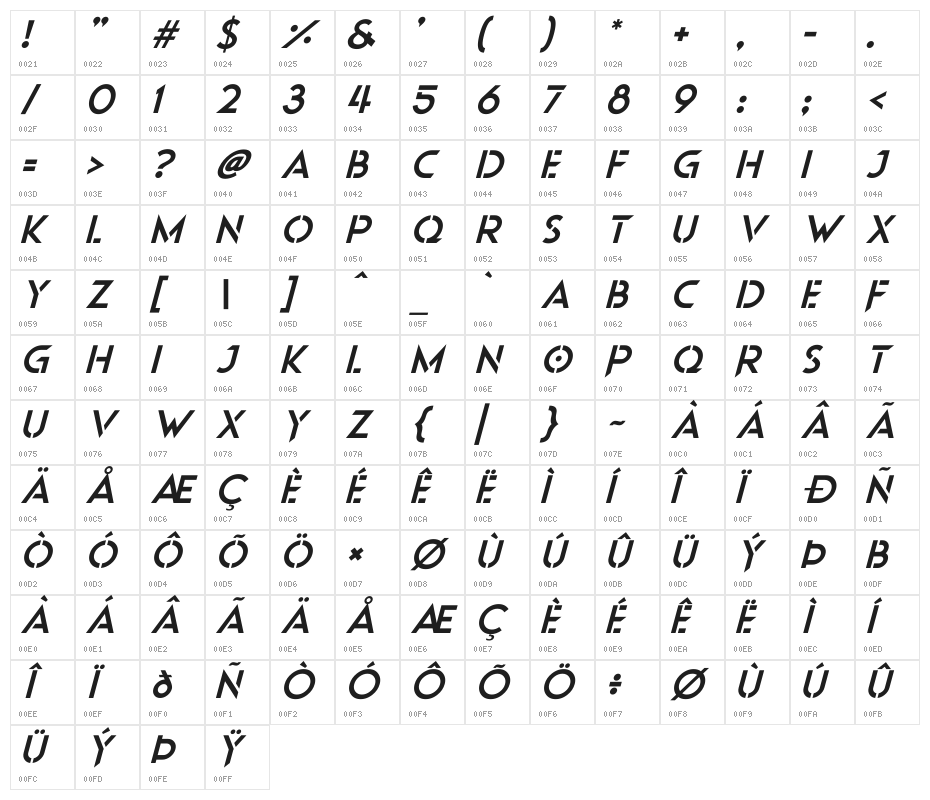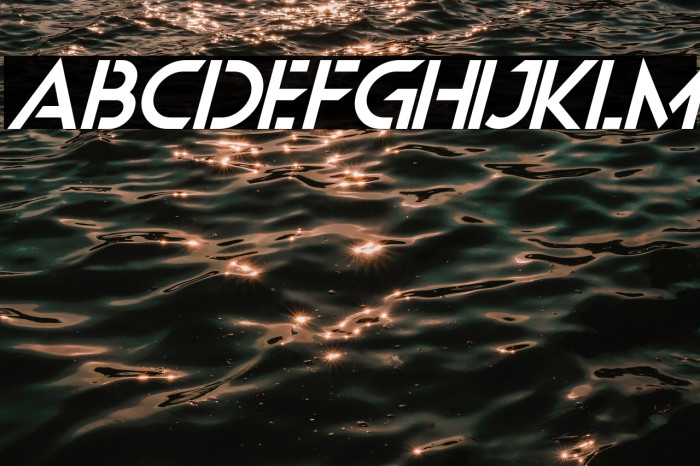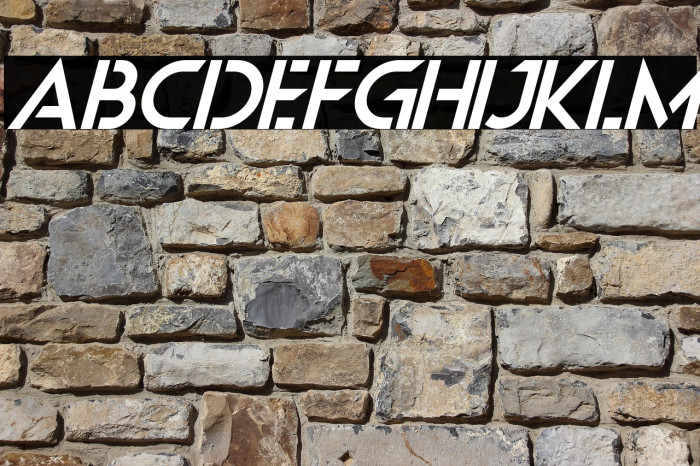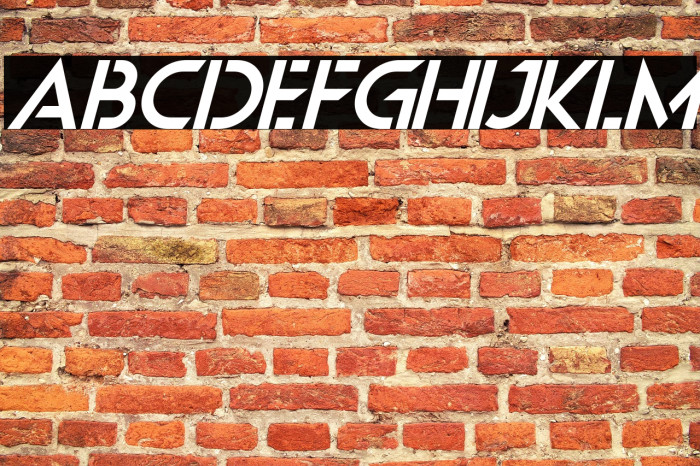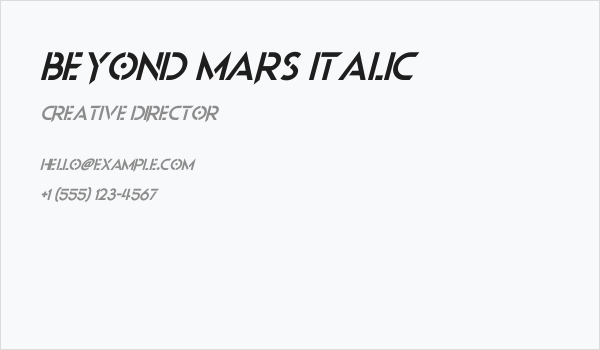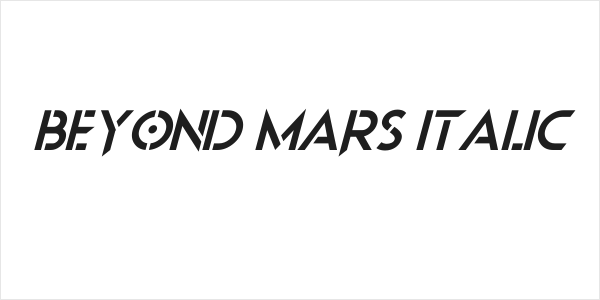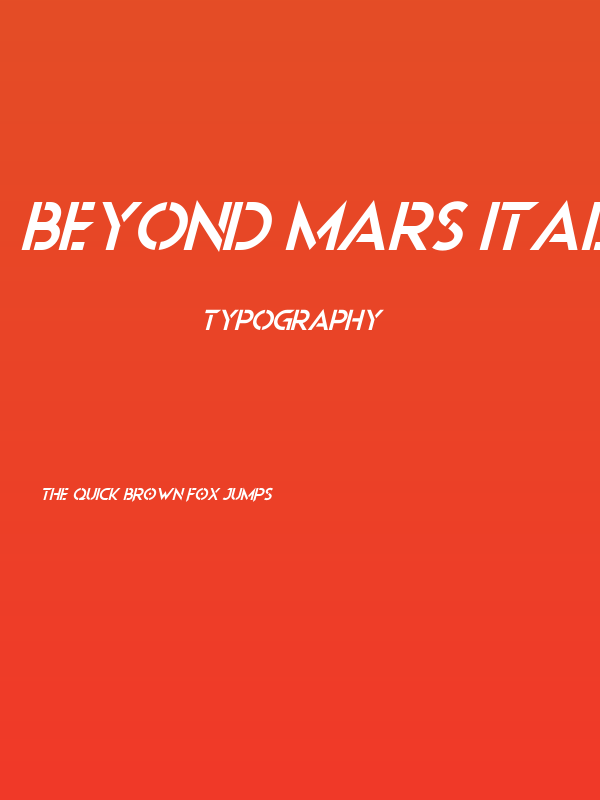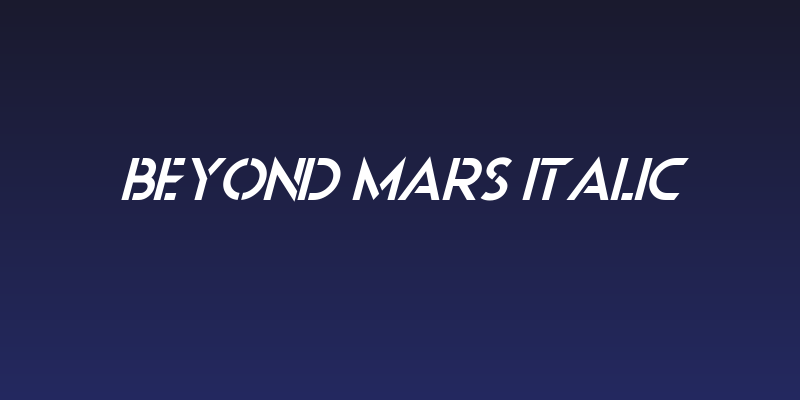
Beyond Mars Italic Font
Beyond Mars Italic Description
This font features a futuristic and dynamic design, characterized by its sharp angles and sleek curves. The italic style adds a sense of motion and speed, making it ideal for projects that require a modern and energetic look. The uppercase and lowercase letters maintain a consistent slant, enhancing the font's cohesive appearance. Numbers and special characters are designed with the same attention to detail, ensuring versatility across various applications. The font's bold weight and high contrast between thick and thin strokes contribute to its striking visual impact. Overall, this font is perfect for capturing attention and conveying a sense of innovation.
| Overall Style | Futuristic, Dynamic |
| Proposed Projects | Ideal for sci-fi movie posters, tech company branding, video game titles, and futuristic event invitations. |